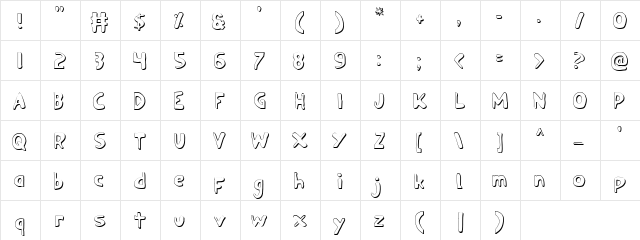
Ozymandias Outline Outline
Design Context for Ozymandias Outline Typeface
Ozymandias Outline is built around its visual character rather than neutral utility — its distinctive forms are designed to make an impression at display sizes.
Font Pairing: Pair with a clean neutral sans-serif for body copy to let Ozymandias Outline's character lead without overwhelming the composition.
Pro Tip: Treat Ozymandias Outline as the centrepiece of your typographic hierarchy. One strong heading set in a decorative face can carry an entire layout.